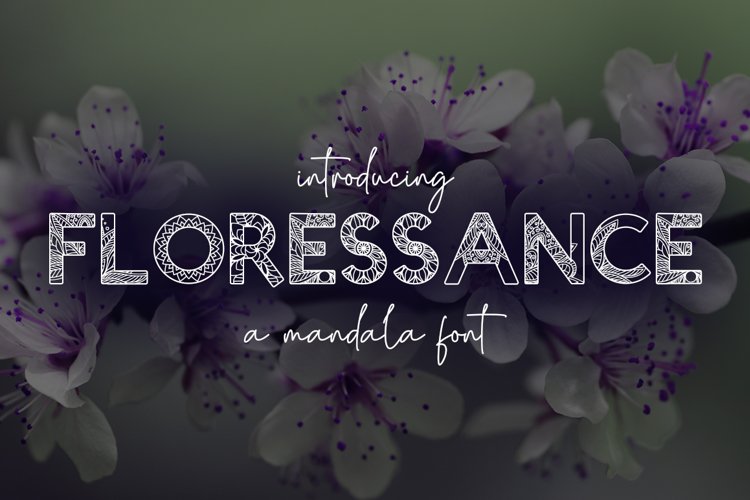
Floressance - a mandala font
Floressance
Save time when designing letters with mandalas or zentangle designs. Suitable for shirts, gifts, stationary, logos, and coloring books.
Floressance - a mandala font